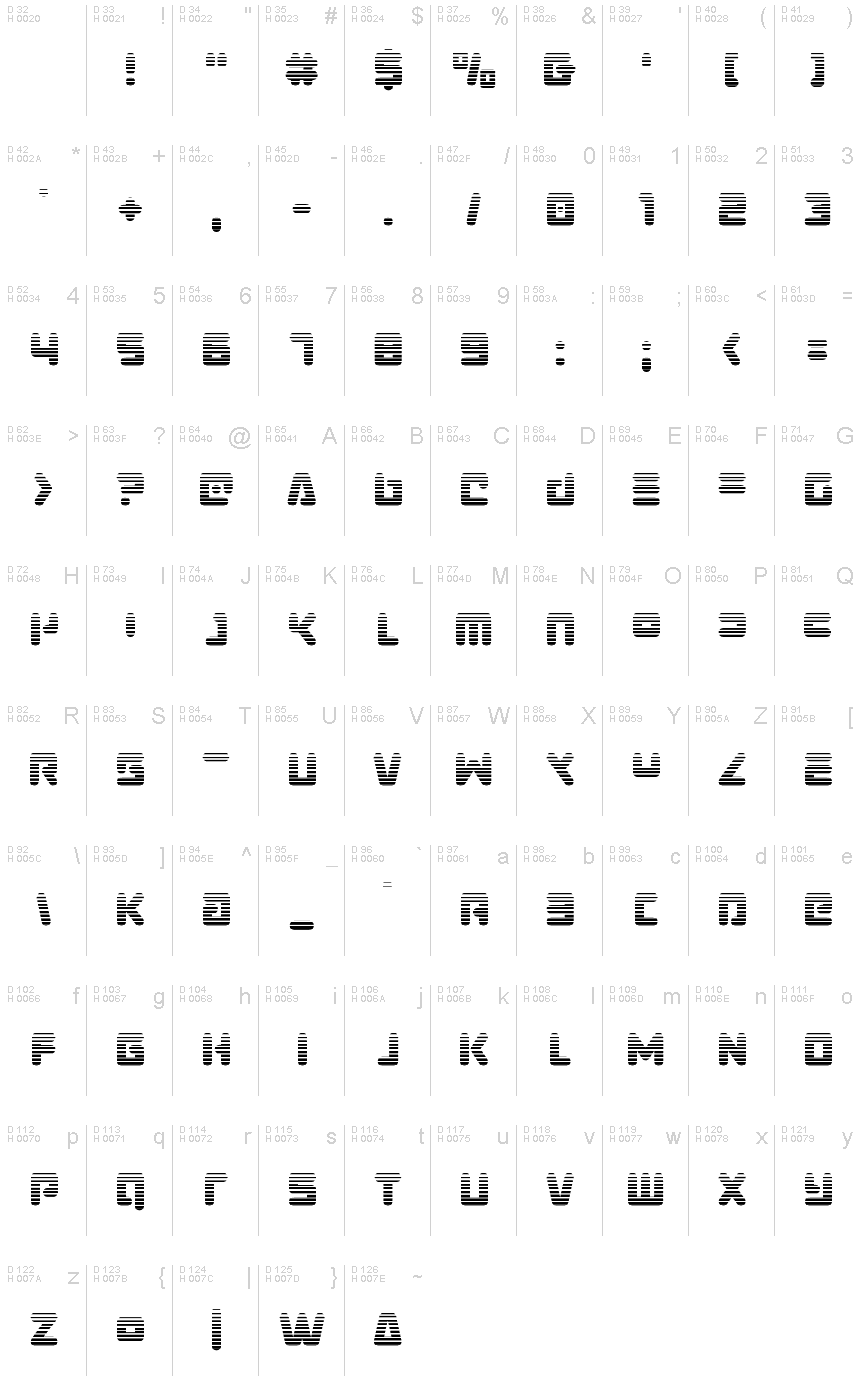
Unbound Gamer Gradient
Unleash your inner gamer with Unbound Gamer, the ultimate display font for your digital projects. Created by renowned font designer Daniel Zadorozny, this techno-inspired typeface features a bold and expanded design that's perfect for gaming titles, logos, and branding materials. With its eye-catching gradient effect, Unbound Gamer Gradient is a standout choice for websites, social media posts, and video game packaging. Whether you're creating content for esports tournaments or designing a new gaming app, Unbound Gamer has got you covered with its powerful presence and modern style. Get ready to level up your design game with Unbound Gamer!